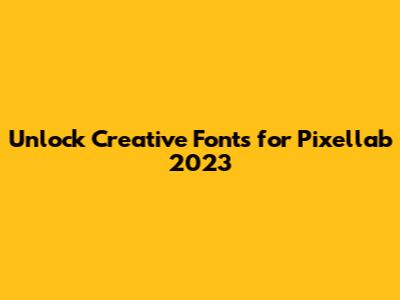
Hey guys! Ever felt like your Pixellab designs could use that extra spark? You know, something that truly makes them pop and stand out from the crowd? Well, let me tell you, the secret sauce often lies in the fonts you use! While Pixellab comes with some decent built-in options, nothing quite beats the power of custom fonts. We're talking about a whole universe of typographic styles just waiting to elevate your creative projects. Imagine crafting a stunning poster, a catchy social media graphic, or even a professional logo, all with a unique typeface that perfectly captures your message or brand identity. That’s the magic we’re diving into today!
What Are Pixellab Fonts and Why You Need 'Em
Alright, let's kick things off by really understanding what Pixellab fonts are all about and why they're an absolute game-changer for anyone serious about design. Simply put, custom fonts for Pixellab are typefaces that aren't pre-loaded into the application. Think of Pixellab as a fantastic art studio, and the built-in fonts are like its standard set of paintbrushes. They're good, they get the job done, but sometimes you need a specialized brush – a fine detail brush, a broad stroke brush, or even something totally unique – to create your masterpiece. That’s where external Pixellab fonts come in. They are those specialized brushes that allow you to add incredible depth, personality, and professionalism to your text elements.
Now, why do you need 'em? First off, uniqueness. In a world saturated with digital content, standing out is paramount. If everyone uses the same handful of default fonts, their designs start to blend together. By incorporating unique fonts into Pixellab, you immediately give your work a distinctive edge. This isn't just about looking different; it's about establishing a visual identity. For personal brands, small businesses, or even just your passion projects, a consistent and unique font choice can become a signature element that people recognize and associate with you.
Secondly, custom fonts elevate design quality. Let's be real, some ideas just demand a specific aesthetic. A sleek, modern sans-serif for a tech startup ad, a playful handwritten script for a children's birthday invitation, or an elegant serif for a wedding announcement – the right font immediately sets the tone and reinforces your message. The built-in fonts, while versatile, can sometimes feel generic. Installing custom fonts in Pixellab 2023 empowers you to choose the absolute perfect typeface that speaks volumes without saying a word. This level of intentionality in your design choices dramatically boosts the perceived quality and professionalism of your work. It shows that you've put thought and effort into every detail, transforming a simple piece of text into an artistic statement that resonates deeply with your audience.
Thirdly, it's about creative freedom and branding. Imagine you have a specific brand guideline that requires a particular font. Without the ability to add custom fonts to Pixellab, you'd be stuck compromising your brand identity. But with this knowledge, you can seamlessly integrate your brand's official typeface into all your Pixellab creations, ensuring consistency across all your digital assets. This is incredibly powerful for maintaining a cohesive look and feel, which is crucial for building recognition and trust. Moreover, exploring different Pixellab font styles can spark new ideas and push your creative boundaries. You might discover a font that inspires an entirely new design concept, or one that perfectly complements an existing graphic, creating a harmonious and visually appealing composition. So, whether you're trying to inject personality, enhance readability, or adhere to strict branding guidelines, understanding how to get fonts for Pixellab 2023 is an essential skill that will truly unlock your design potential and make your work unforgettable.
Let's start with some of the absolute go-to sites for free fonts. First up, DaFont (dafont.com). This site is a treasure trove of free fonts, organized by themes, which makes finding something specific incredibly easy. Whether you're looking for a horror-themed font, a fancy script, or a pixel art style, DaFont probably has it. Just remember to check the license for each font – many are free for personal use but require a commercial license if you plan to use them for business or client work. Next, we have Font Squirrel (fontsquirrel.com). This one's a personal favorite because it focuses on high-quality, commercially free fonts. Yes, you read that right – completely free for almost any use! They even have a handy webfont generator. Another fantastic resource is Google Fonts (fonts.google.com). Not only do they offer a massive library of beautiful, open-source fonts that are free for both personal and commercial use, but these fonts are also optimized for web use, meaning they're super clean and legible. Finally, don't forget 1001 Fonts (1001fonts.com) and UrbanFonts (urbanfonts.com) – both are excellent alternatives with huge selections, again, with licenses you'll want to double-check.
When you're looking for the best fonts for Pixellab, it's not just about hitting up these sites; it's also about making smart choices. Here are some pro tips for selecting Pixellab fonts: First, always check the license! I cannot stress this enough. Using a font commercially without the proper license can lead to legal issues. Most sites clearly indicate whether a font is free for personal, commercial, or both. Second, consider the readability of the font. A super fancy script might look cool, but if your audience can't easily read it, it defeats the purpose. This is especially important for body text or crucial information. Third, think about the mood and message you want to convey. Does the font's style align with your project's theme? A serious project might call for a robust serif, while a playful one could benefit from a bubbly sans-serif or a fun script. Fourth, look for fonts available in TTF (TrueType Font) or OTF (OpenType Font) formats, as these are the most compatible and easiest to install into Pixellab. Many font packages come in a .zip file, which you'll need to extract to get to the .ttf or .otf files. Finally, don't be afraid to experiment, but also try to limit your font choices to two or three per design to maintain visual harmony. Mixing too many different Pixellab font styles can make your design look cluttered and unprofessional. Happy font hunting, designers!
Your Step-by-Step Guide: How to Install Fonts in Pixellab 2023
Alright, guys, this is the moment you've been waiting for! We've talked about why custom fonts are awesome for Pixellab and where to find the best Pixellab fonts. Now, let's get down to the nitty-gritty: a super simple, step-by-step guide on how to install fonts in Pixellab 2023. Trust me, it’s much easier than you might think, and once you master this, a whole new world of design possibilities will open up for your mobile creations. So, grab your phone, and let's get those unique fonts into Pixellab!